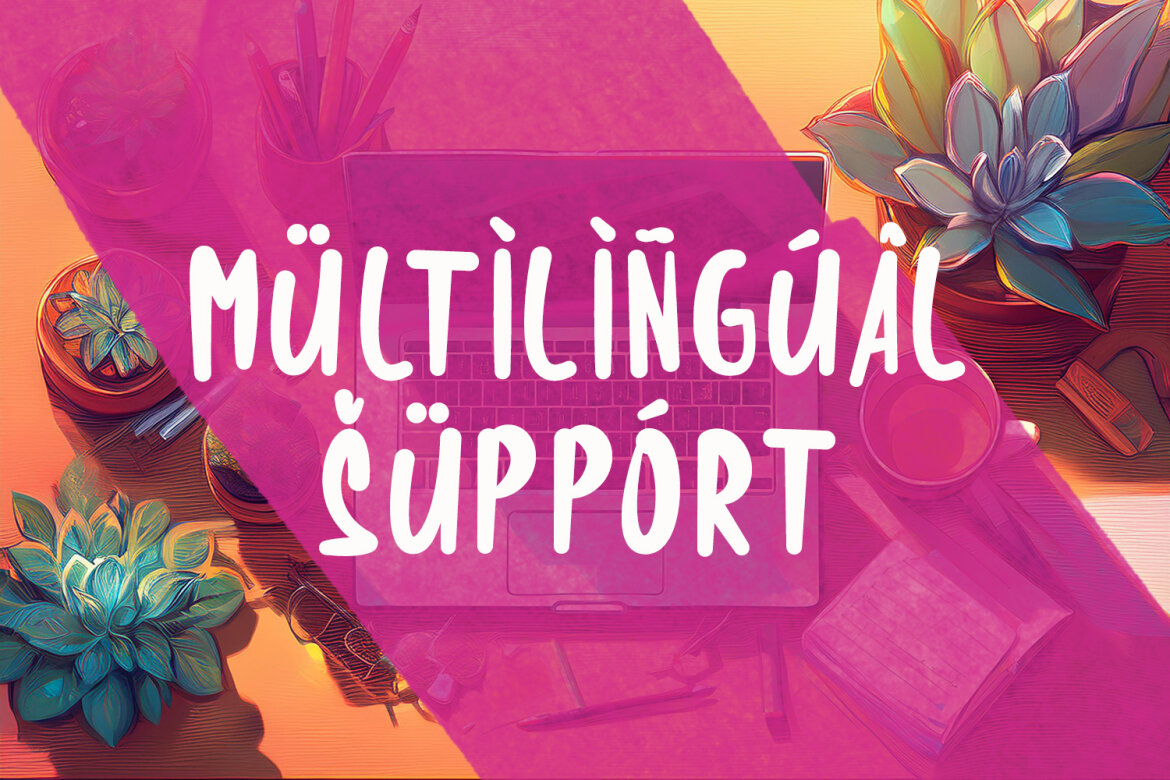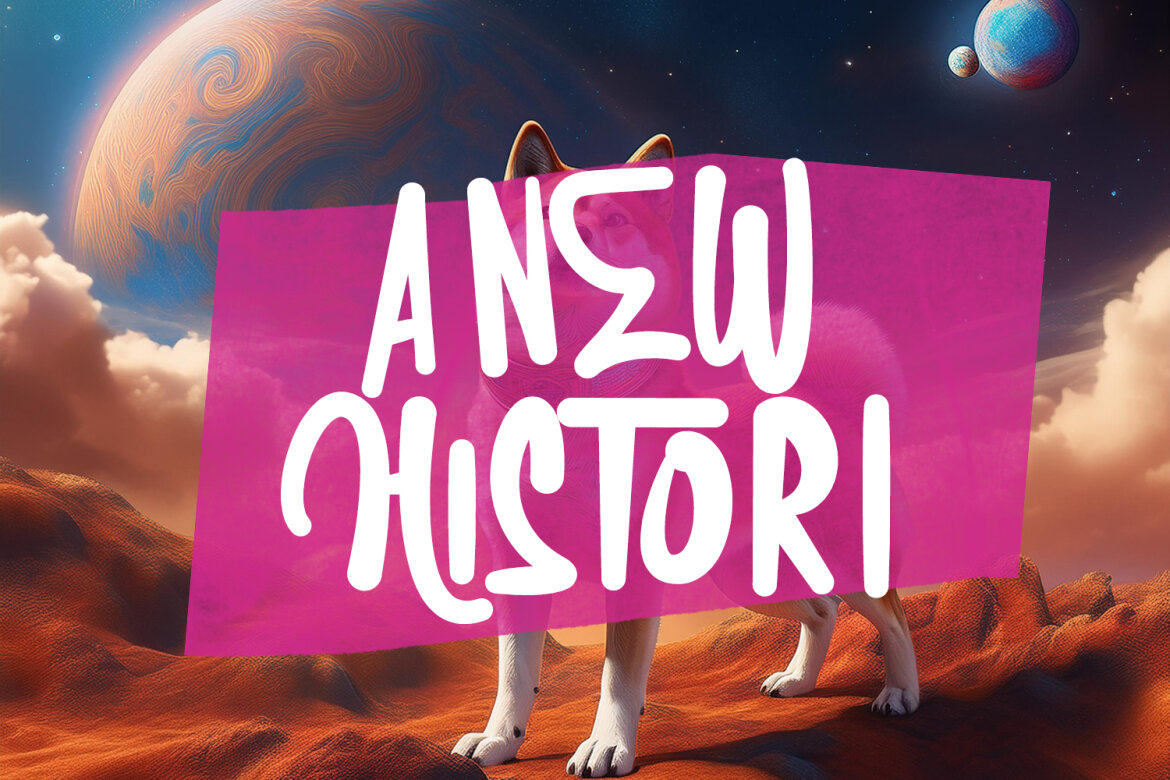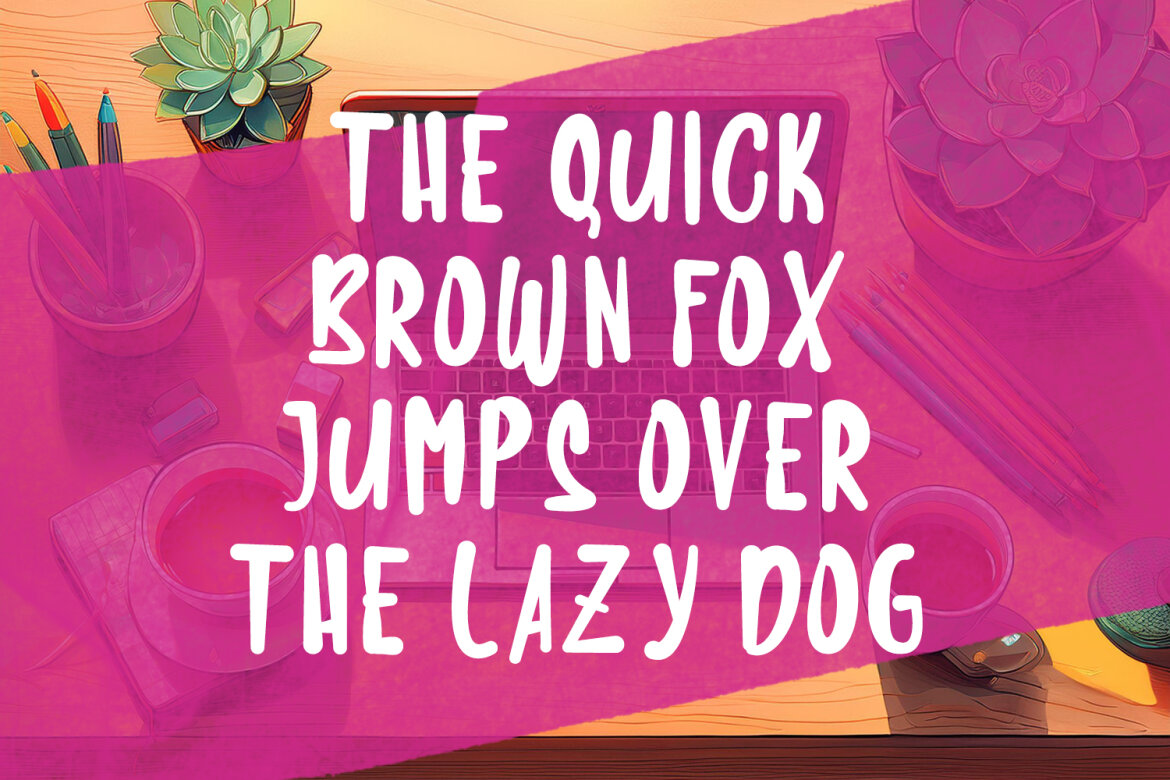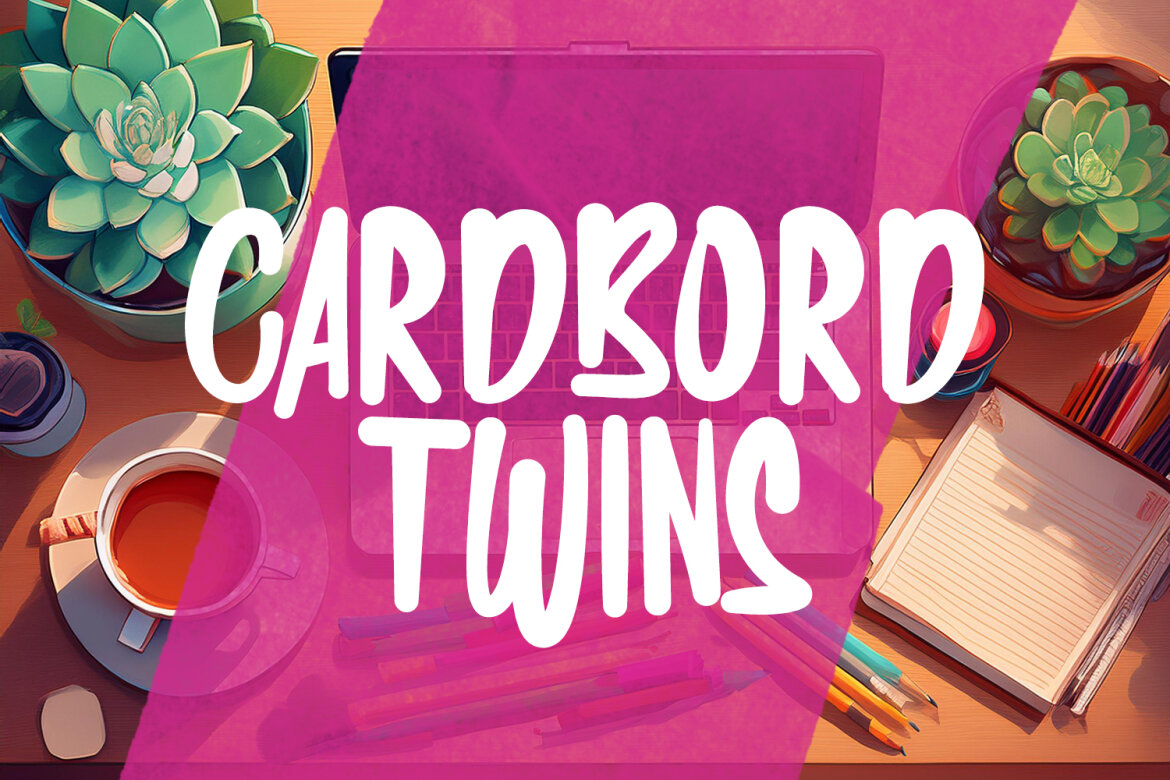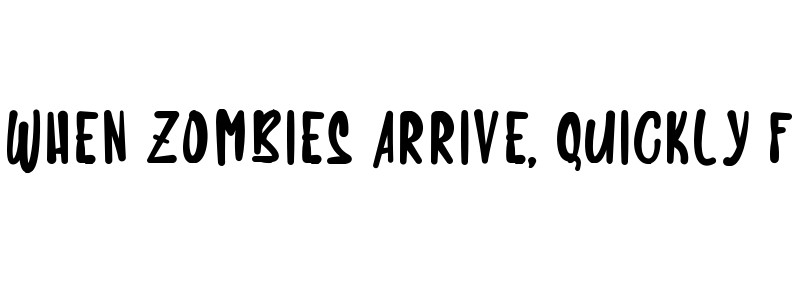
Hitori Case Handmade FREE Font
Hitori Case preview
Hitori Case
Give your designs an authentic brush handcrafted feel. “Hitori Case Handmade Brush Display Font” is perfectly suited to signature, stationery, logo, typography quotes, website header, branding and more.